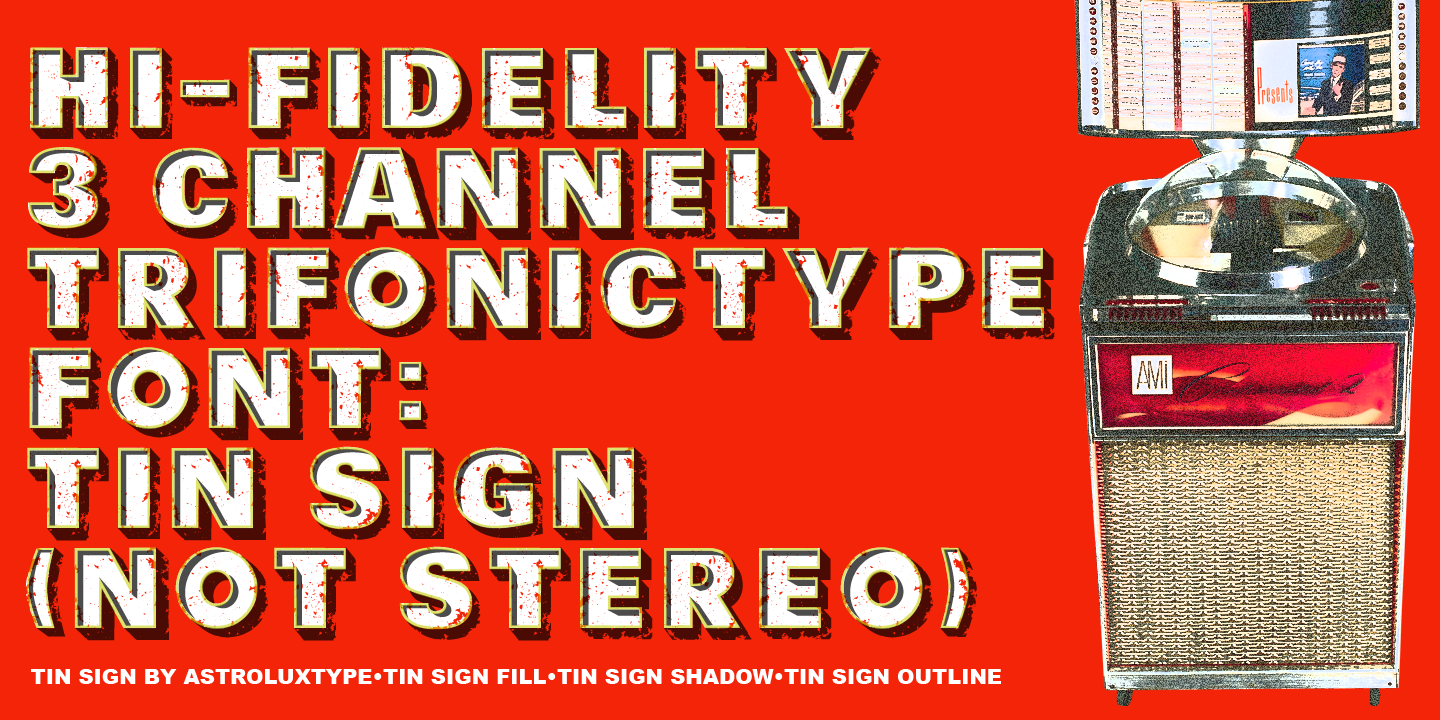
Tin Sign Font is perfect for vintage advertising reproductions, retro diner signage, antique shop displays, classic Americana designs, nostalgic garage decorations, historical recreation projects, old-fashioned product labels, and authentic roadside attraction branding.
Tin Sign Font is exciting because it authentically captures the rugged charm and industrial heritage of classic American tin signage with its bold, weathered letterforms that evoke memories of Route 66 diners and vintage gas stations, embodying the honest craftsmanship and enduring appeal of mid-century commercial advertising that defined small-town America, making it ideal for projects requiring vintage authenticity and nostalgic commercial character.
The Tin Sign Font family includes multiple weights and styles such as Regular, Bold, Light, Distressed, and Weathered versions, providing designers with comprehensive options for creating authentic typographic systems that maintain the vintage tin signage aesthetic across various retro and heritage applications.
Tin Sign Font Free Download offers designers access to a historically rich typeface that embodies the golden age of American roadside advertising and the enduring appeal of vintage commercial signage. This exceptional font captures the essence of classic tin sign craftsmanship and the nostalgic charm that defines authentic Americana design, creating a powerful tool for brands seeking to communicate heritage, reliability, and the timeless appeal of traditional American commerce.
The font's robust letterforms feature sturdy proportions and industrial characteristics that mirror the durable construction found in vintage tin advertising signs and classic roadside displays. Each character has been carefully crafted to work effectively within compositions, ensuring that Tin Sign Font delivers exceptional impact while maintaining the authentic character that makes it so effective in vintage and heritage applications.
Professional designers working with retro brands and heritage tourism projects appreciate this font's ability to instantly communicate authenticity and American commercial tradition. The typeface excels in applications where nostalgic appeal meets contemporary marketing needs, from vintage-themed restaurant branding to antique shop identity systems, from retro product packaging to heritage tourism promotions.
The comprehensive character set includes period-appropriate symbols and vintage commercial elements, making it particularly suitable for Americana projects while preserving its distinctive tin sign character. Whether used for vintage advertising reproductions, retro business signage, or heritage marketing materials, this font delivers consistent visual impact that enhances brand credibility and nostalgic connection.
Creative professionals in the hospitality and heritage industries have embraced Tin Sign Font for its unique ability to bridge historical authenticity with modern commercial applications. Its versatility allows it to adapt seamlessly to both vintage recreation projects and contemporary brands seeking classic American appeal while maintaining its traditional industrial character.
This remarkable typeface has become an essential tool for designers who understand that certain brands benefit from typography that connects with American industrial heritage and roadside culture. Its ability to instantly communicate vintage authenticity and commercial reliability makes it invaluable for businesses seeking to establish trust through historical connection and nostalgic appeal.